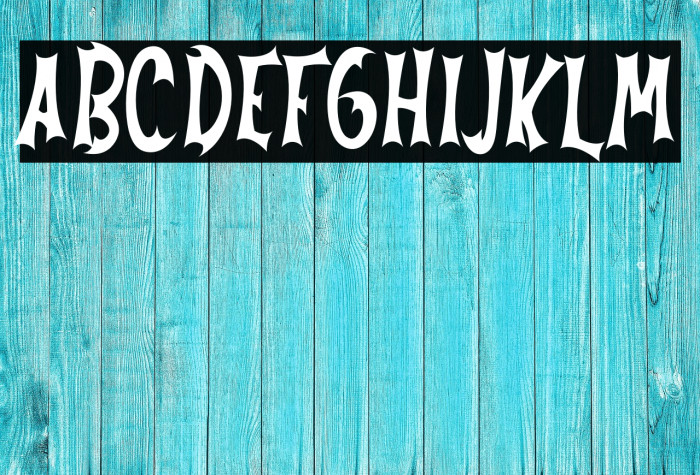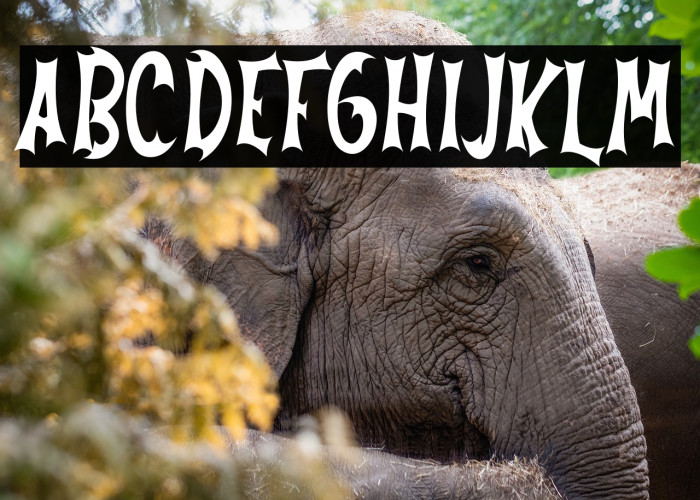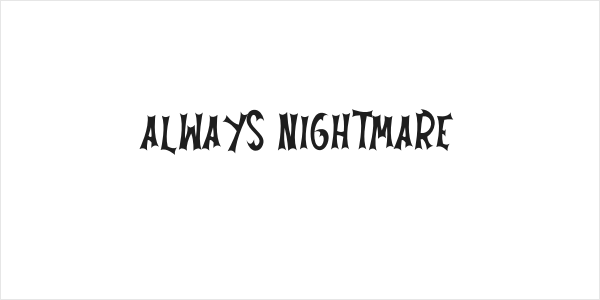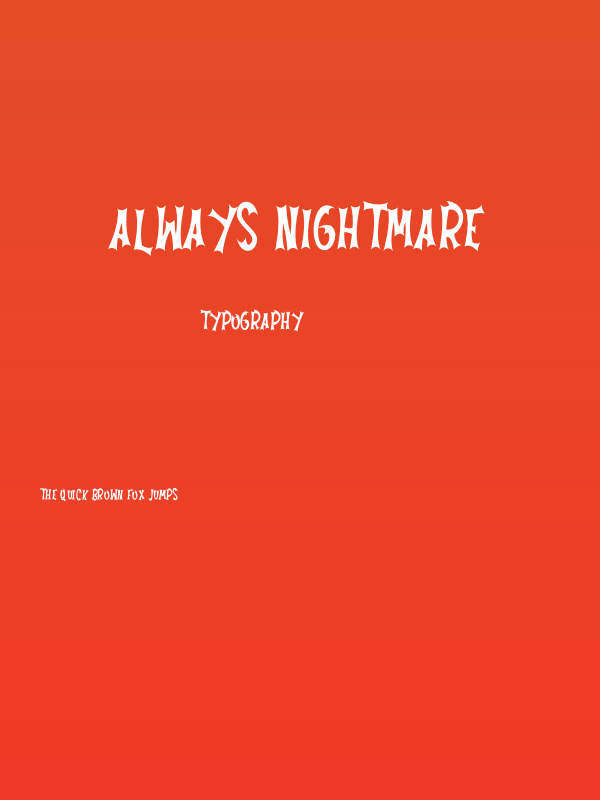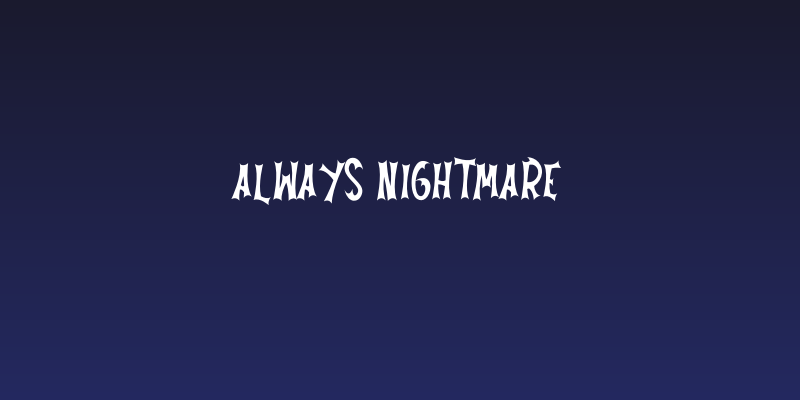
Always Nightmare Font
| Stile generale | Decorative, Spooky, Dramatic |
| Caso d'uso | Headlines, Posters, Logos, Themed Graphics |
| Progetti proposti | Halloween posters, horror movie titles, haunted house flyers, themed party invitations, video game graphics. |